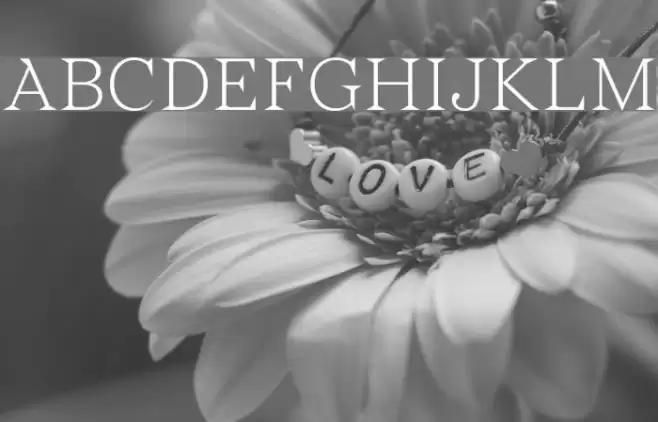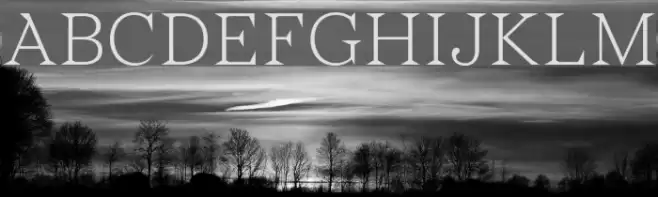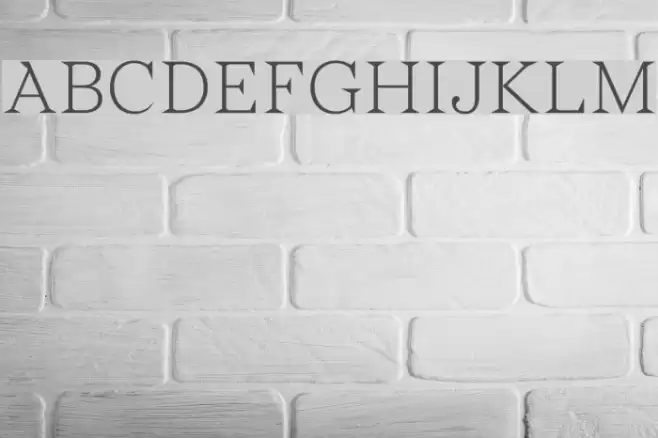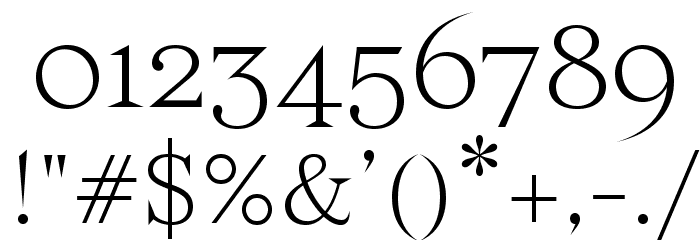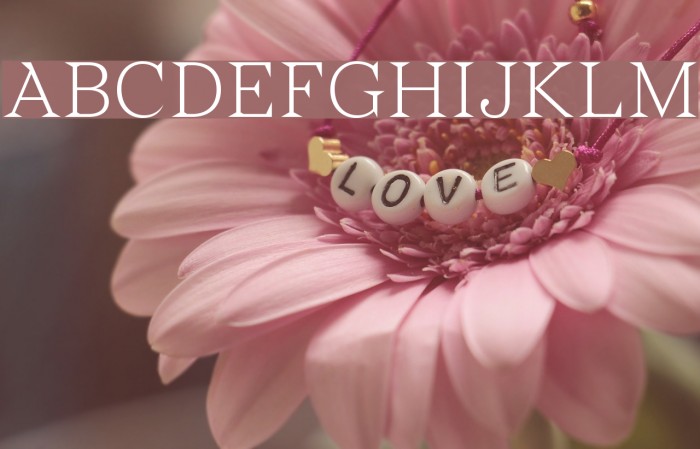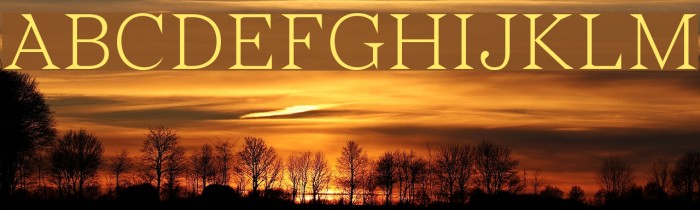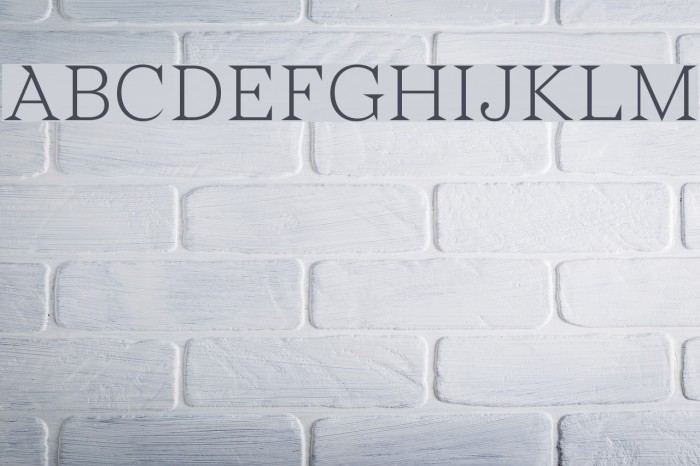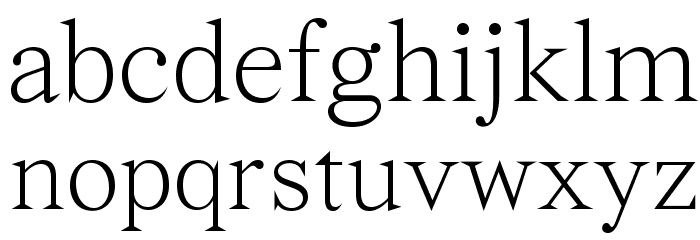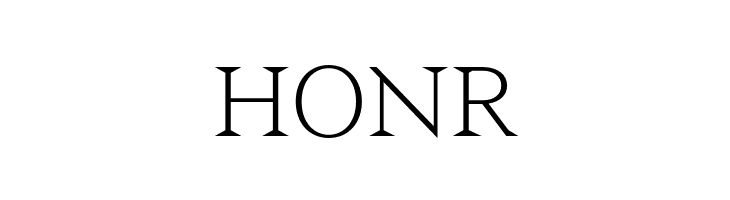
Wremena-Light Font
Wremena-Light Description
This font features a refined and elegant design, characterized by its thin, delicate strokes and high contrast between thick and thin lines. The serifs are sharp and pronounced, adding a touch of sophistication. The uppercase letters are tall and commanding, while the lowercase letters maintain a graceful flow. The numerals are distinct and well-proportioned, ensuring clarity in numerical data. Special characters are thoughtfully designed to complement the overall aesthetic, making this font versatile for various applications.
A refined serif font with high contrast and elegant serifs from Uncategorized fonts.
- Proposed Projects: Ideal for editorial design, luxury branding, wedding invitations, and high-end product packaging.
- Overall Style: Classic